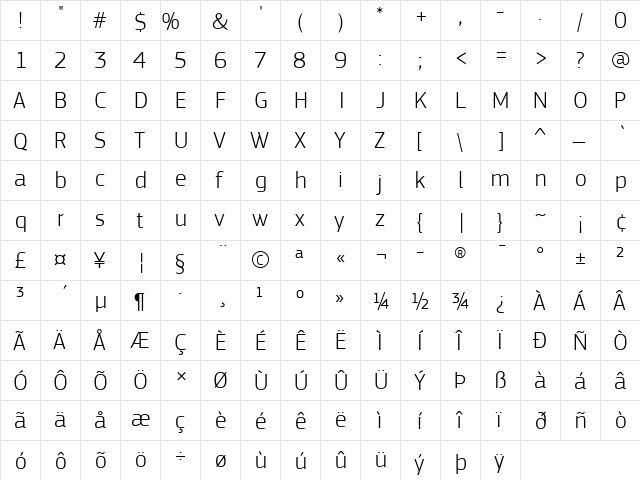
PF Square Sans Pro Light
| Foundry | Parachute蠗orldwide |
| Designer | Panos Vassiliou |
Design Context for PF Square Sans Pro Typeface
PF Square Sans Pro is a composed and adaptable typeface that performs quietly and consistently across a wide range of design contexts. The delicate stroke weight brings airiness and refinement to layouts.